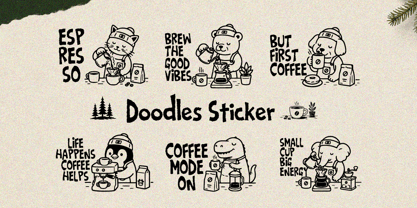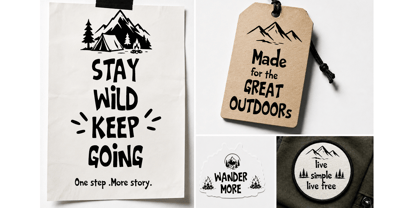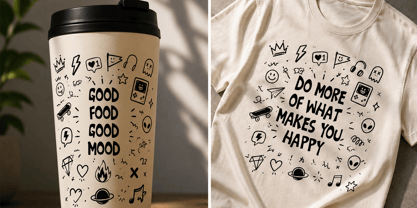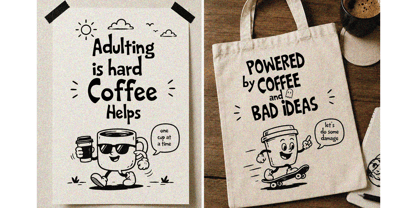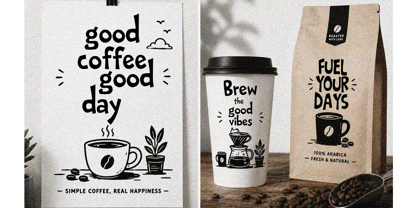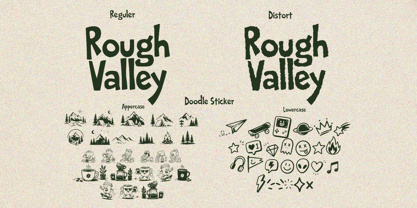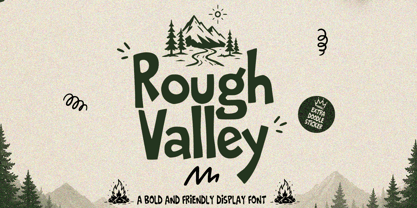
Rough Valley
Rough Valley – Bold & Friendly Display Font
Rough Valley is a bold and friendly display font inspired by the beauty of nature and outdoor adventures. Featuring chunky letterforms, smooth curves, and a slightly rugged touch, this font delivers a warm, playful, and eye-catching appearance.
Designed to stand out while remaining highly readable, Rough Valley brings a natural and handcrafted feel that works perfectly across a wide range of creative projects. Its strong personality makes it ideal for designs that need both impact and approachability.
Whether used for branding, logos, posters, packaging, or merchandise, Rough Valley adds a distinctive charm that feels both modern and organic.
Bonus: Extra Doodles Stickers
This package also includes a set of extra doodle stickers designed to perfectly match the font style. These playful, hand-drawn elements help enhance visual storytelling and make designs more lively and engaging.
Ideal for adding decorative accents to posters, packaging, social media graphics, stickers, and more, the doodles bring additional flexibility and creativity to your work.